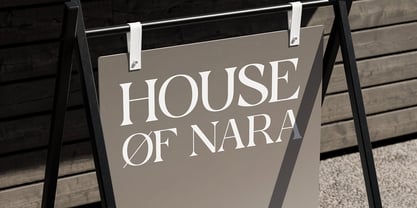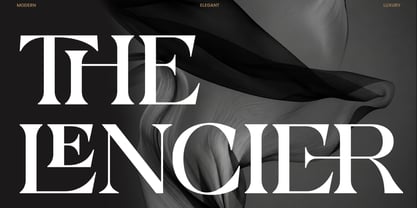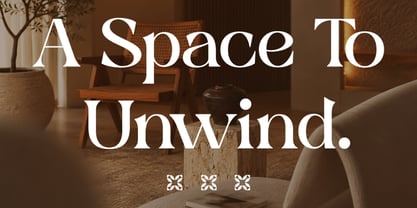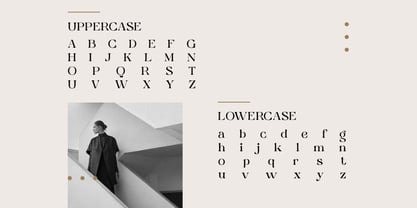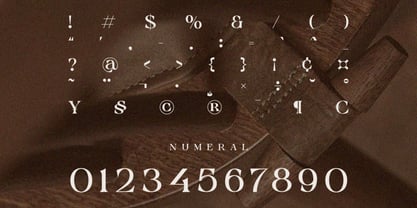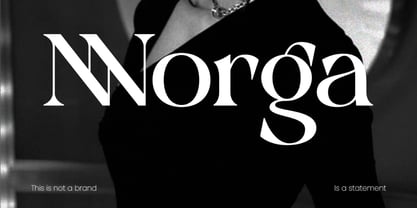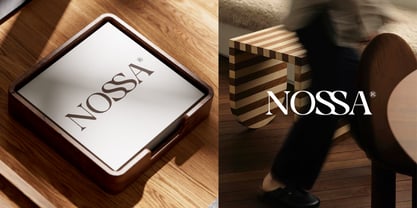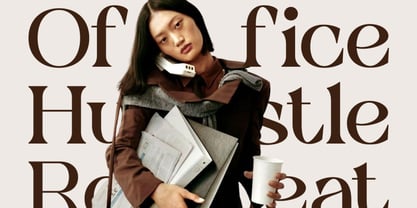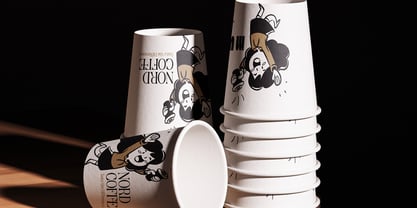
The Lencier
La familia tipográfica The Lencier fue diseñada por Fajar Indra y publicada por Rasio Studio. The Lencier contiene 1 estilos. Más información sobre esta familia
The Lencier Elegant Luxury Serif is a refined modern serif typeface featuring high-contrast strokes, graceful curves, and sophisticated letterforms designed to convey exclusivity and timeless elegance. The font combines classic editorial aesthetics with contemporary luxury styling, creating a balanced visual presence suitable for premium branding and high-end design projects.
Relevance and Use Case is highly perfect for luxury branding, fashion campaigns, beauty product packaging, premium logo creation, editorial publishing, magazine covers, wedding stationery, boutique marketing, hotel branding, jewelry promotions, cosmetic labels, lifestyle advertising, social media graphics, luxury presentations, and high-end visual identity systems where sophistication, elegance, and premium visual appeal are essential.